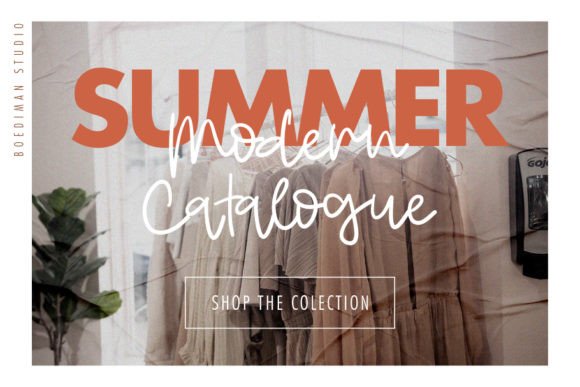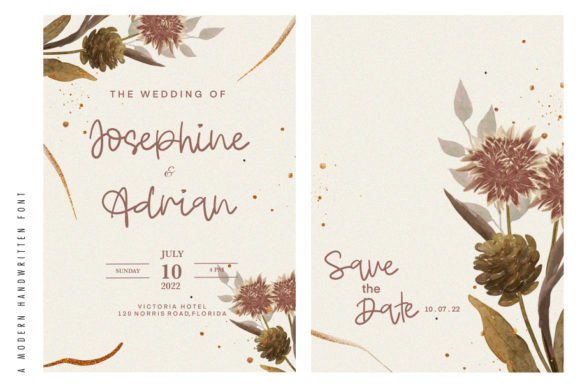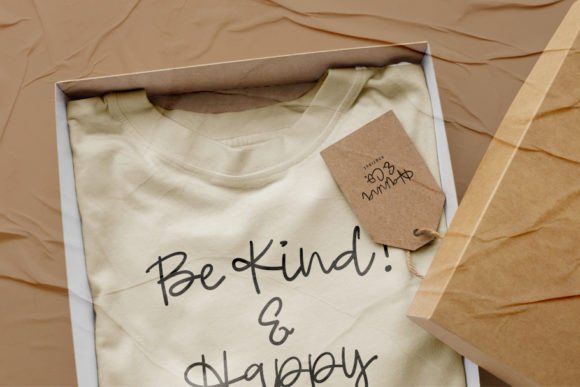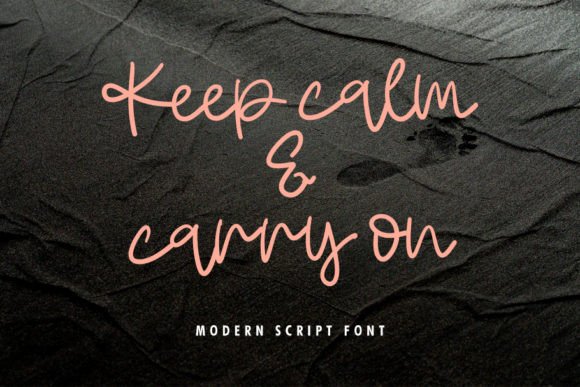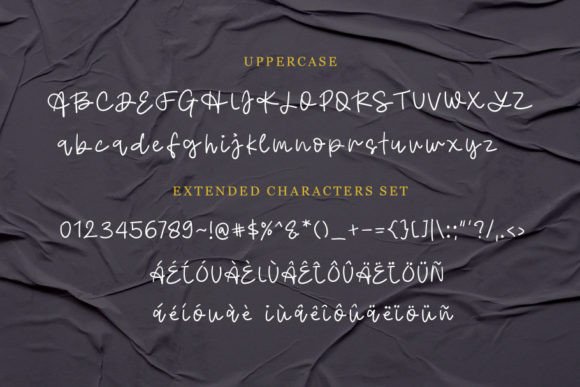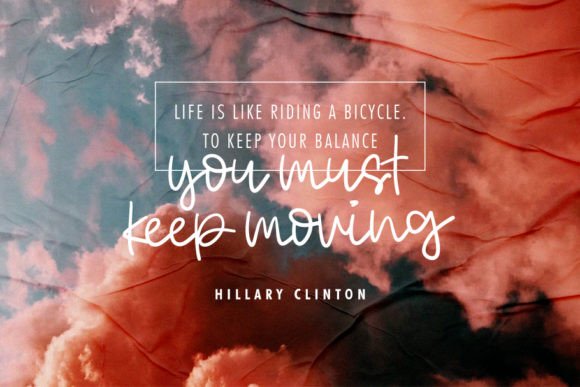
Introducing Gloryness Font: Elevate Your Designs with Elegance and Sophistication
In the world of typography, a font can make or break a design. It’s the perfect blend of style, elegance, and personality that can elevate a project from ordinary to extraordinary. If you’re a designer, crafter, or simply someone who appreciates beautiful typography, you’re in for a treat. Say hello to Gloryness Font, a stunning handwritten font that’s sure to capture your heart.
What is Gloryness Font?
Gloryness is an exquisite handwritten font, masterfully designed to become a true favorite among designers and crafters. This gorgeous font seamlessly blends traditional calligraphic influences with modern flair, making it perfect for a wide range of projects. Whether you’re working on a wedding invitation, a branding campaign, or a DIY craft, Gloryness Font is sure to bring a touch of sophistication and elegance to your work.
The Characteristics of Gloryness Font
So, what makes Gloryness Font so special? Here are just a few of its standout features:
- Classy Calligraphic Influences: Gloryness Font boasts beautiful, flowing strokes that evoke the elegance of traditional calligraphy.
- Contemporary and Fresh: Despite its classic roots, Gloryness Font feels modern and fresh, making it perfect for designers who want to create something new and exciting.
- Handwritten Charm: The font’s handwritten nature gives it a warm, personal feel that’s perfect for projects where you want to add a touch of personality.
- Versatile: Gloryness Font is incredibly versatile, making it suitable for a wide range of projects, from wedding invitations to branding campaigns, and even DIY crafts.
Why Choose Gloryness Font?
With so many fonts available, why choose Gloryness Font? Here are just a few compelling reasons:
- Unique and Eye-Catching: Gloryness Font is sure to turn heads with its unique blend of classic and modern styles.
- Easy to Read: Despite its elegant nature, Gloryness Font is incredibly easy to read, making it perfect for body text and headlines.
- Highly Versatile: Whether you’re working on a digital project or a print project, Gloryness Font is sure to shine.
- Perfect for Designers and Crafters: Gloryness Font is a must-have for designers and crafters who want to add a touch of elegance and sophistication to their work.
How to Use Gloryness Font
So, how can you use Gloryness Font in your projects? Here are a few ideas to get you started:
- Wedding Invitations: Add a touch of elegance to your wedding invitations with Gloryness Font.
- Branding Campaigns: Use Gloryness Font to create stunning branding campaigns that showcase your company’s personality and style.
- DIY Crafts: Add a personal touch to your DIY crafts with Gloryness Font.
- Digital Projects: Use Gloryness Font in your digital projects, such as social media graphics, blog posts, and more.
In conclusion, Gloryness Font is a true gem in the world of typography. Its exquisite handwritten design, classy calligraphic influences, and modern flair make it the perfect choice for designers and crafters who want to elevate their projects to the highest levels. With its versatility, readability, and unique style, Gloryness Font is sure to become a favorite among typography enthusiasts. So, fall in love with Gloryness Font and bring your projects to life with elegance and sophistication!